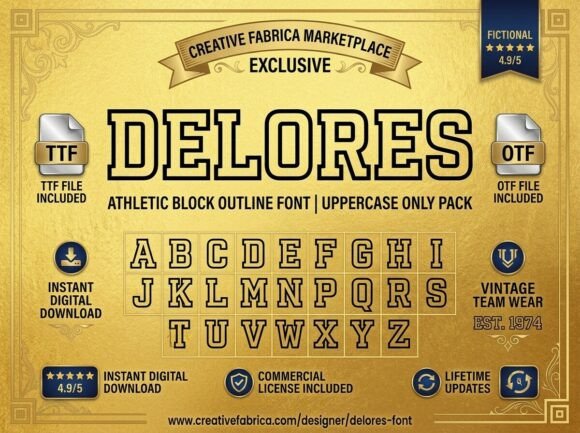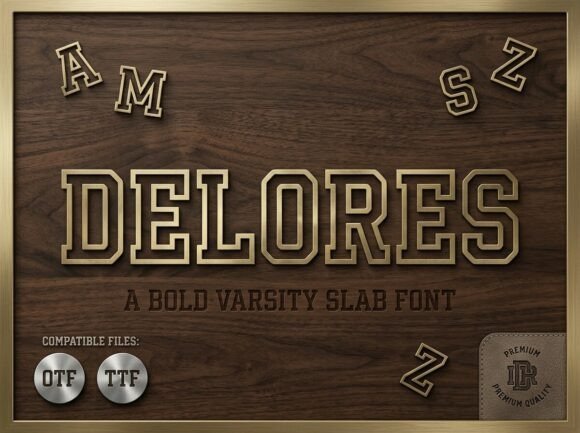
Introduction to Delores Font
Step onto the field with Delores, a heavy-hitting athletic block outline font designed for high-impact team spirit.
This uppercase-only pack features bold, slab-serif letterforms characterized by their clean, geometric lines and classic β€œvarsity” outline aesthetic Drawing inspiration from vintage sportswear and university team wear, Delores is the premier choice for collegiate branding, high-energy sports marketing, custom jersey numbering, and bold streetwear apparel.